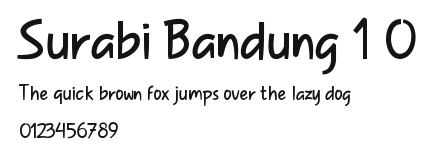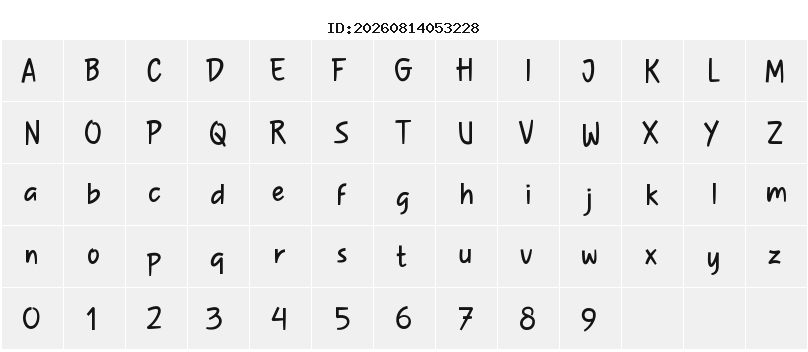
Surabi Bandung 1.0 Preview
• Font Name: Surabi Bandung 1.0
• Full Font Name: Surabi Bandung 1.0
• Designer: Haris Gunawan
About Surabi Bandung 1.0.ttf
Surabi Bandung 1.0.ttf is a modern, elegant sans-serif font designed for ultimate readability and visual harmony. Perfect for branding, headlines, web design, and print materials.